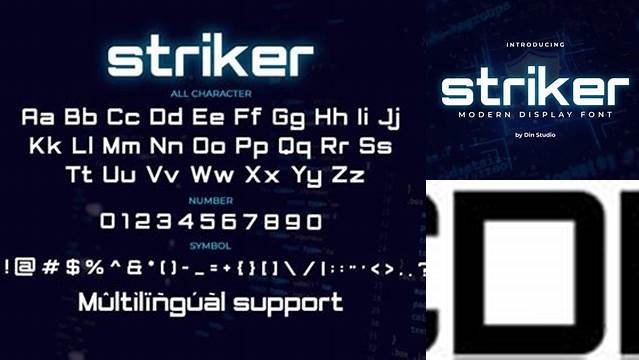
Are you on the lookout for a font that commands attention and adds a touch of boldness to your designs? Look no further! The Striker Regular font might be just what you need. In this comprehensive guide, we'll dive deep into the world of Striker Regular, exploring its characteristics, creative applications, and, most importantly, where you can download it for free. So, buckle up, design enthusiasts, and let's get started!
What is Striker Regular Font?
Striker Regular font is a typeface designed to make a statement. It's a bold, sans-serif font that exudes strength and confidence. Its clean lines and sharp edges give it a modern, almost futuristic feel, making it a popular choice for various design projects. This font family embodies a robust and assertive character, making it a go-to option for designers aiming to convey a sense of power and stability. The distinct letterforms are crafted to capture the essence of dynamism, ensuring that any text set in Striker Regular commands attention. It is particularly well-suited for headlines, titles, and other display purposes where impact is paramount. The font's inherent legibility, despite its bold nature, makes it versatile enough for shorter blocks of text as well, allowing for a cohesive design across different elements.
When you first encounter Striker Regular, the boldness is the most striking feature. This isn't a delicate, understated font; it's designed to be seen and heard. The thick strokes and strong letterforms immediately grab your attention. Think of it as the visual equivalent of a powerful voice. This inherent boldness makes Striker Regular ideal for projects where you need to make a statement, whether it's a website header, a poster, or a logo. Imagine using Striker Regular for the title of a tech startup's website or for the headline of a fitness magazine – the font's strength perfectly complements these themes.
Beyond its boldness, Striker Regular possesses a modern aesthetic. The sans-serif design, characterized by the absence of small decorative strokes (serifs) at the end of letterforms, lends a contemporary feel. This makes it a great fit for projects that aim for a clean, minimalist look. The clean lines and geometric shapes of the letters create a sense of precision and efficiency. This is why you often see fonts like Striker Regular used in branding for tech companies, sports teams, and other organizations that want to project an image of innovation and forward-thinking. The cleanliness of the lines ensures readability across various media, from digital displays to print, making it a reliable choice for diverse applications. The carefully balanced letter spacing and kerning contribute to the overall legibility and aesthetic appeal, preventing the font from appearing cluttered or overwhelming, even in its bolder forms.
Striker Regular isn't just about strength and modernity; it also has a versatile appeal. While it's particularly well-suited for bold headlines and titles, it can also be used effectively in shorter blocks of text. The key is to use it judiciously. Overusing a bold font can make your design feel overwhelming, so it's best to use Striker Regular strategically, pairing it with a more neutral font for body text. Imagine using Striker Regular for the headings of a brochure, with a more classic serif font for the body text – the contrast creates a visually appealing and easy-to-read design. The font's adaptability extends to different design styles, making it a valuable asset in any designer's toolkit. Whether you're working on a cutting-edge website or a traditional print project, Striker Regular can be adapted to fit the overall aesthetic.
Key Characteristics of Striker Regular
Let's break down the key characteristics that make Striker Regular font so unique and widely used:
Bold and impactful: As we've discussed, the font's boldness is its defining characteristic. It commands attention and makes a strong statement. The robust strokes and sturdy letterforms create a sense of presence and authority, ensuring that the message stands out. This makes it an ideal choice for projects where visibility and memorability are crucial, such as advertising campaigns, promotional materials, and branding initiatives. The visual weight of the font contributes to its impactful nature, making it suitable for headlines, banners, and other design elements that require prominence.
Sans-serif design: The absence of serifs gives Striker Regular a clean and modern look. This contributes to its versatility, allowing it to fit seamlessly into a variety of design styles. The sans-serif nature of the font also enhances readability, particularly in digital environments, where the absence of small details can prevent visual clutter. This clean aesthetic aligns well with contemporary design trends that prioritize simplicity and clarity, making Striker Regular a favored choice for web design, user interface design, and other digital applications. The lack of serifs also provides a more neutral and streamlined appearance, allowing the font to complement other design elements without overpowering them.
Clean lines and sharp edges: These elements contribute to the font's modern and almost futuristic feel. The precise lines and sharp angles create a sense of precision and sophistication, making it a great choice for projects that aim to convey a sense of innovation and cutting-edge technology. The sharp edges also add a touch of dynamism, giving the font a sense of movement and energy. This makes it particularly well-suited for projects in industries such as technology, sports, and entertainment, where a sense of excitement and forward-thinking is essential. The combination of clean lines and sharp edges results in a font that is both visually striking and highly legible, ensuring that it remains effective across various applications.
Versatile applications: Striker Regular can be used for headlines, titles, logos, and even shorter blocks of text. Its adaptability makes it a valuable asset for designers. The font's versatility stems from its ability to convey strength and clarity simultaneously, making it suitable for a wide range of design needs. Whether you're creating a website, designing a poster, or developing a brand identity, Striker Regular can be adapted to fit the overall aesthetic. Its clean and modern appearance ensures that it remains relevant and effective in diverse contexts, from print to digital media. The adaptability of Striker Regular also makes it a cost-effective choice for designers, as it can be used across multiple projects without appearing repetitive or out of place.
Excellent legibility: Despite its boldness, Striker Regular is designed for readability. The carefully crafted letterforms and spacing ensure that it remains legible even at smaller sizes. This is a crucial factor for any font, as legibility is paramount for effective communication. Striker Regular's clear and distinct letterforms prevent confusion and ensure that the message is conveyed accurately. This makes it a reliable choice for both headlines and body text, though it's often best used sparingly in longer paragraphs due to its bold nature. The font's legibility is further enhanced by its consistent stroke weight and well-balanced proportions, ensuring that each letter is easily recognizable and readable, even in challenging conditions such as low-resolution displays or poor lighting.